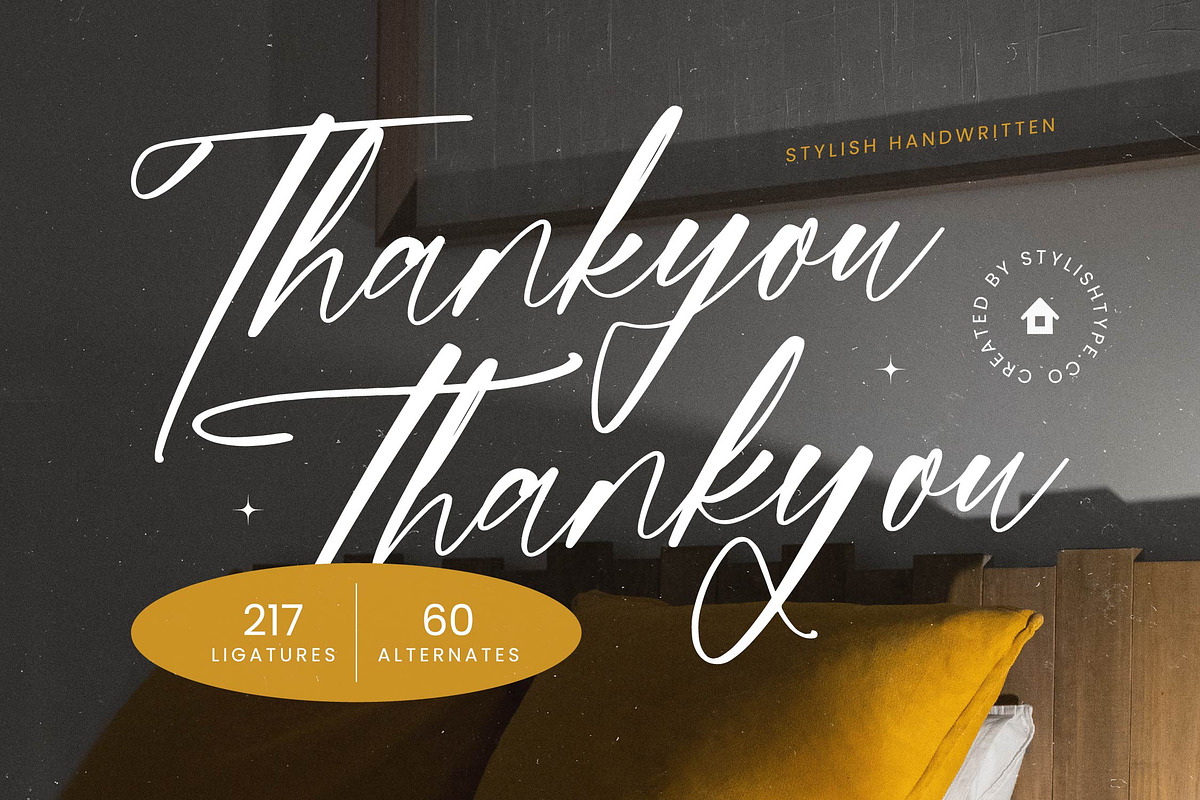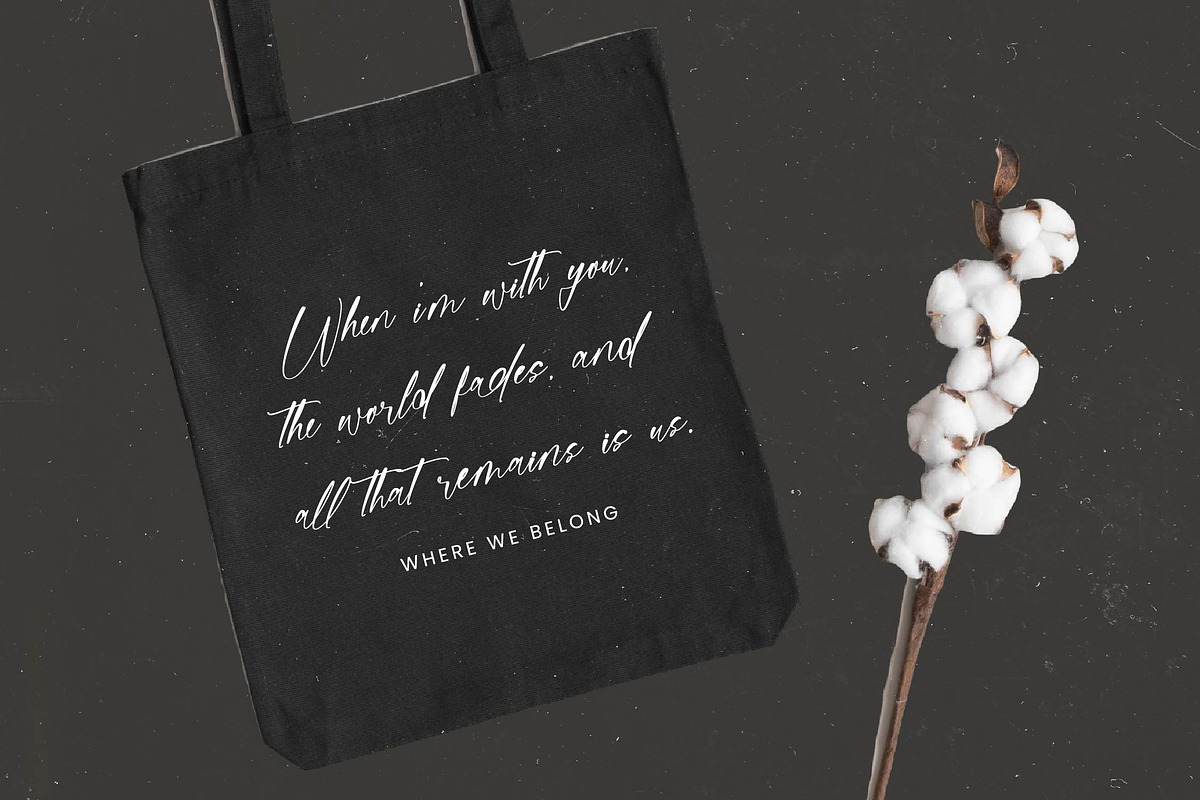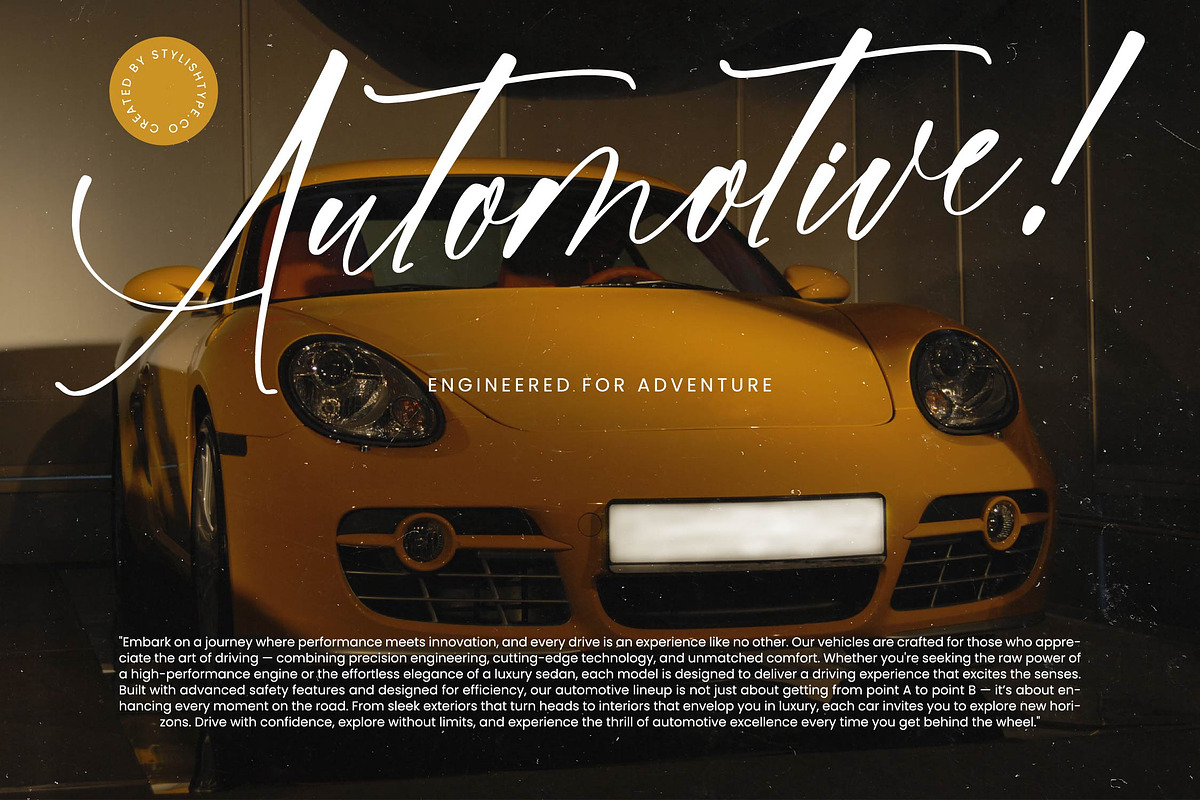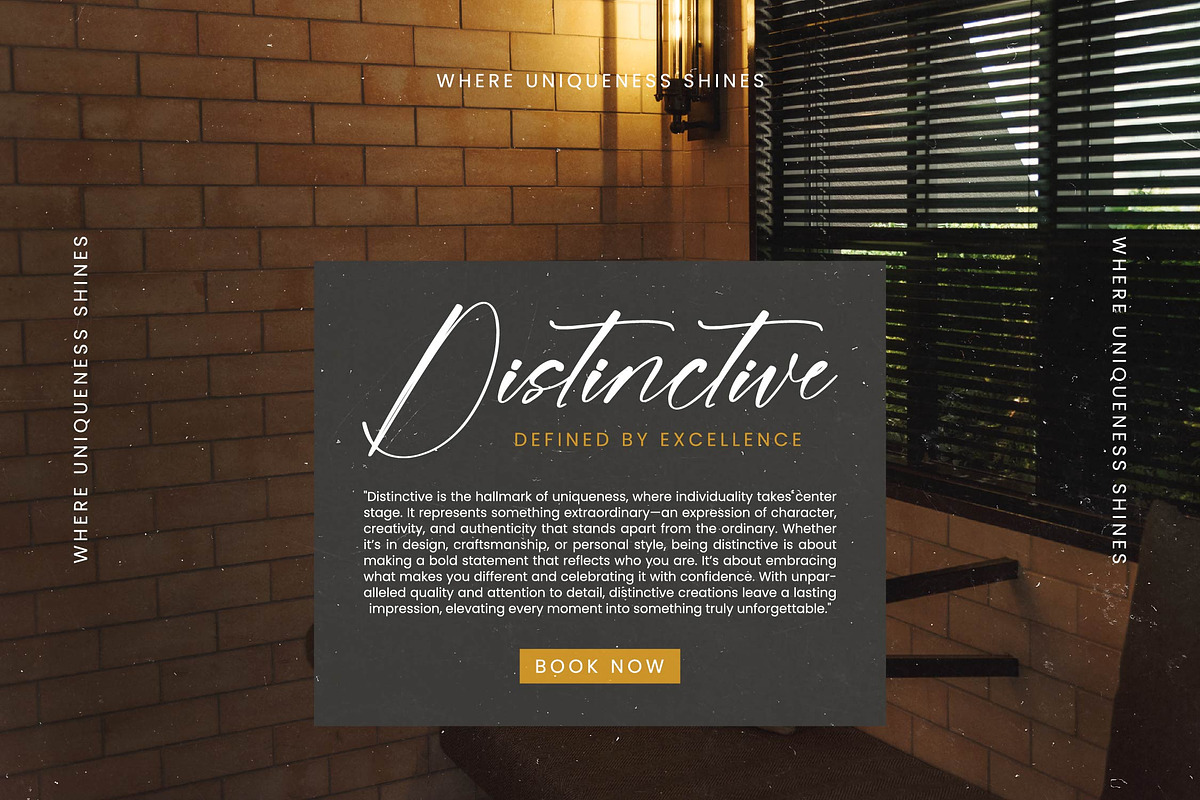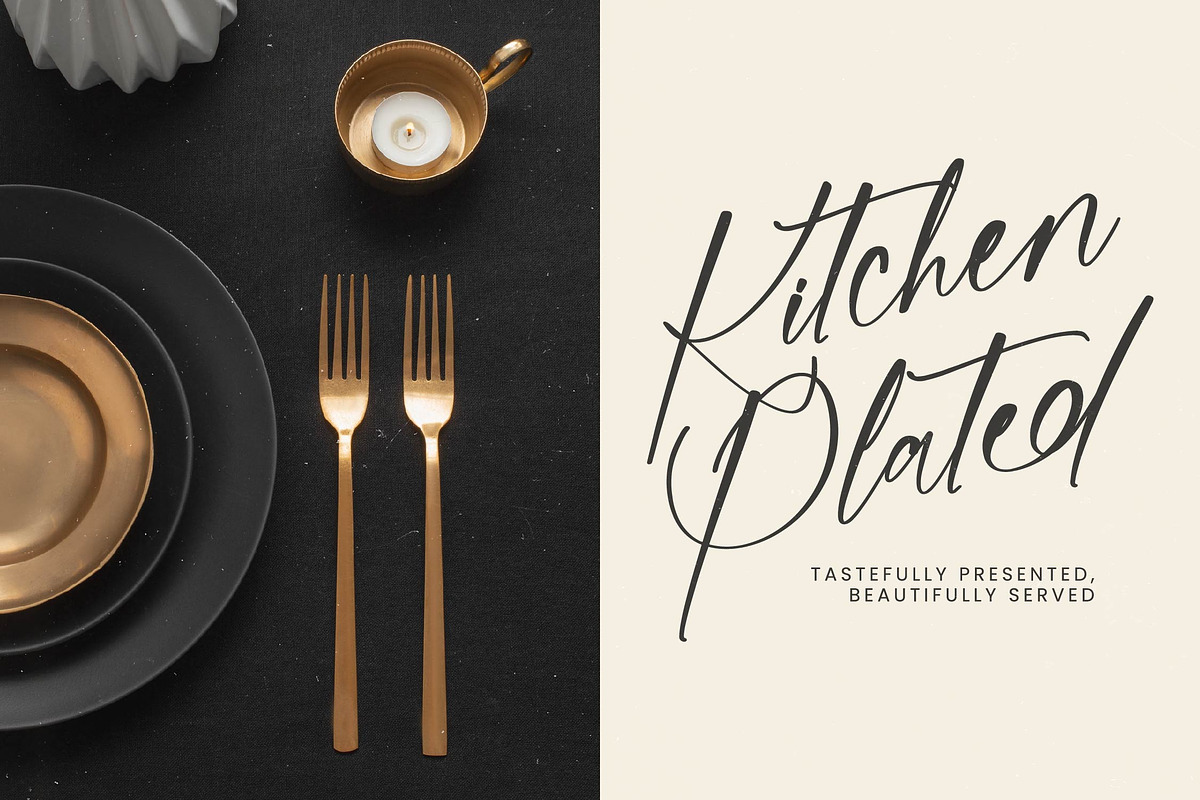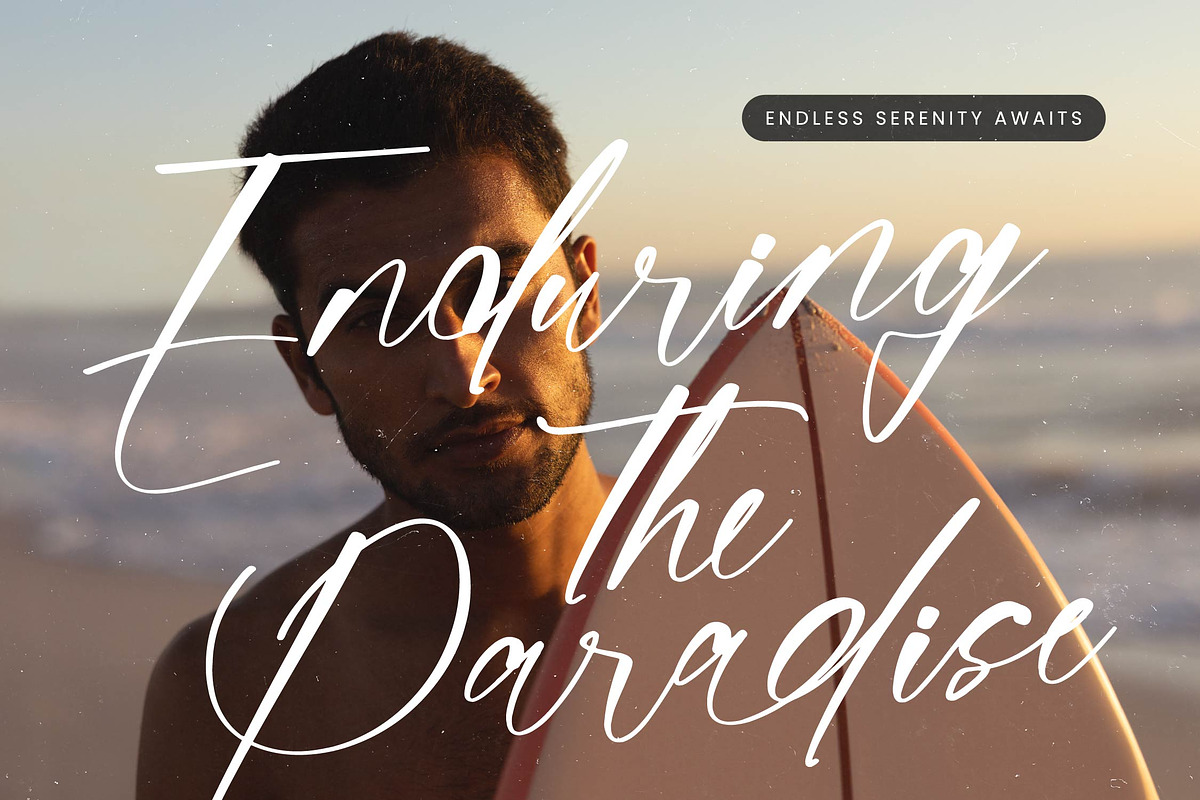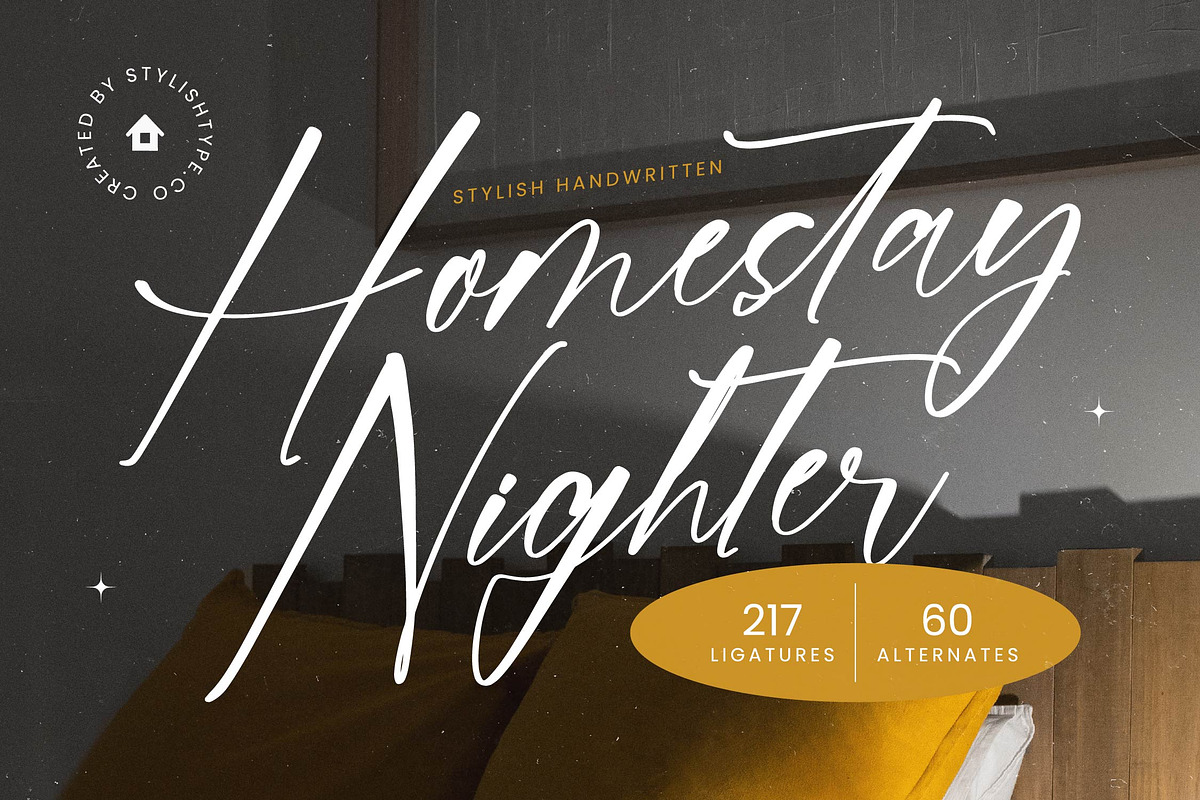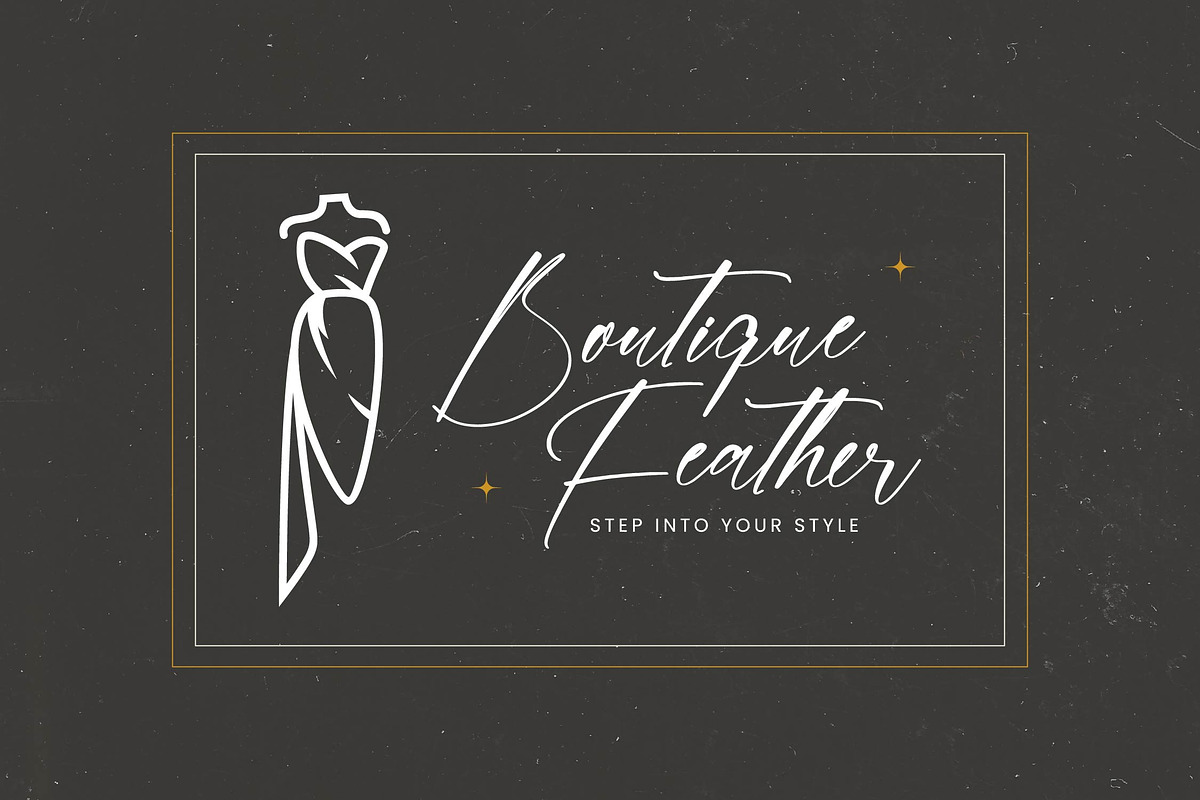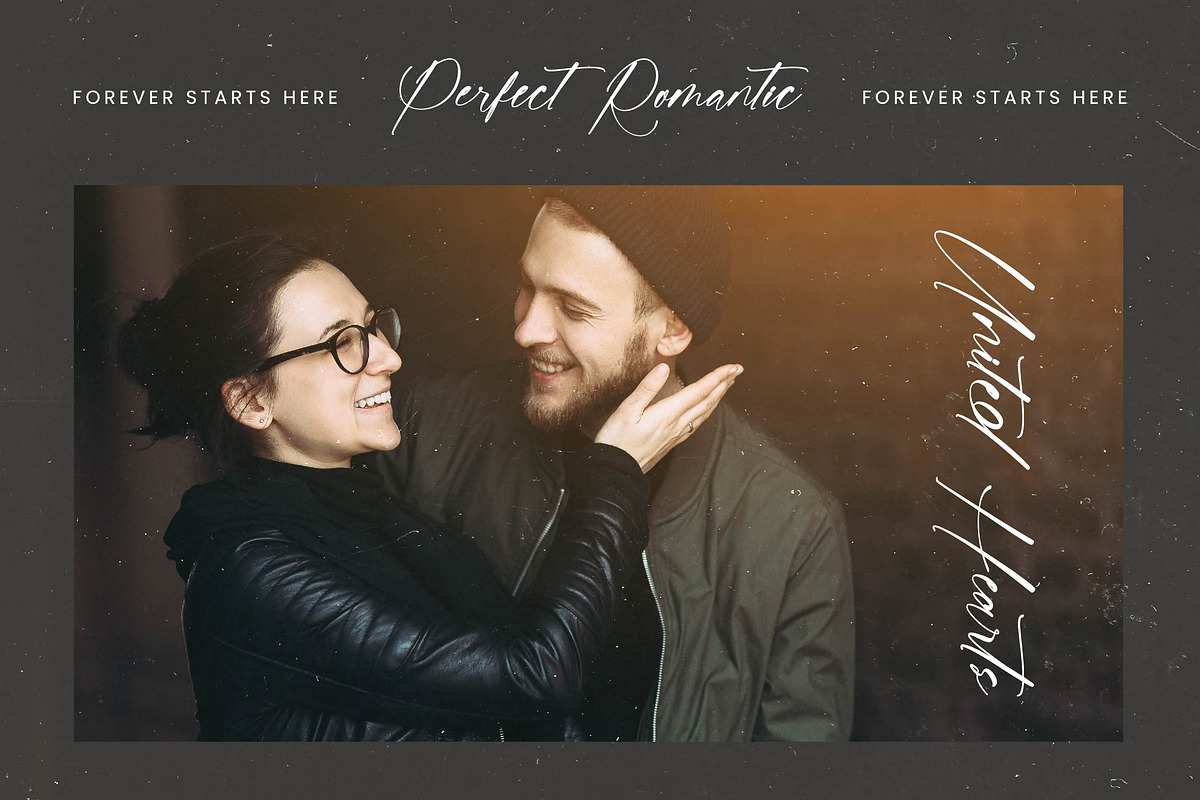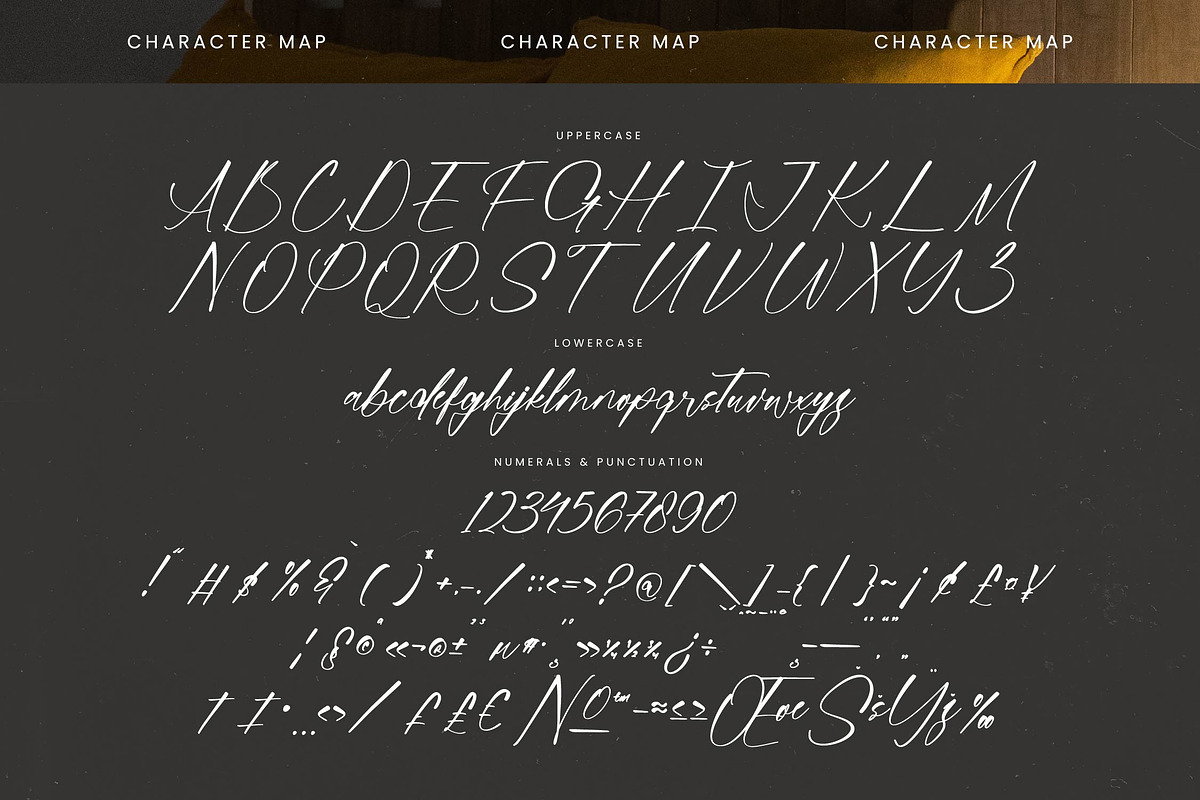
Homestay Nighter Stylish Handwritten
Homestay Nighter - Stylish Handwritten Font , from Stylishtype.Co , Suitable for any projects such as: logos, branding projects, homeware designs, product packaging, mugs, quotes, posters, shopping bags, t-shirts, book covers, name card, invitation cards, greeting cards, label, photography, watermark, special events, and all your other luxury and beautiful projects that need a Luxury Script taste.
- 217 Ligature 60 Alternates & Swashes